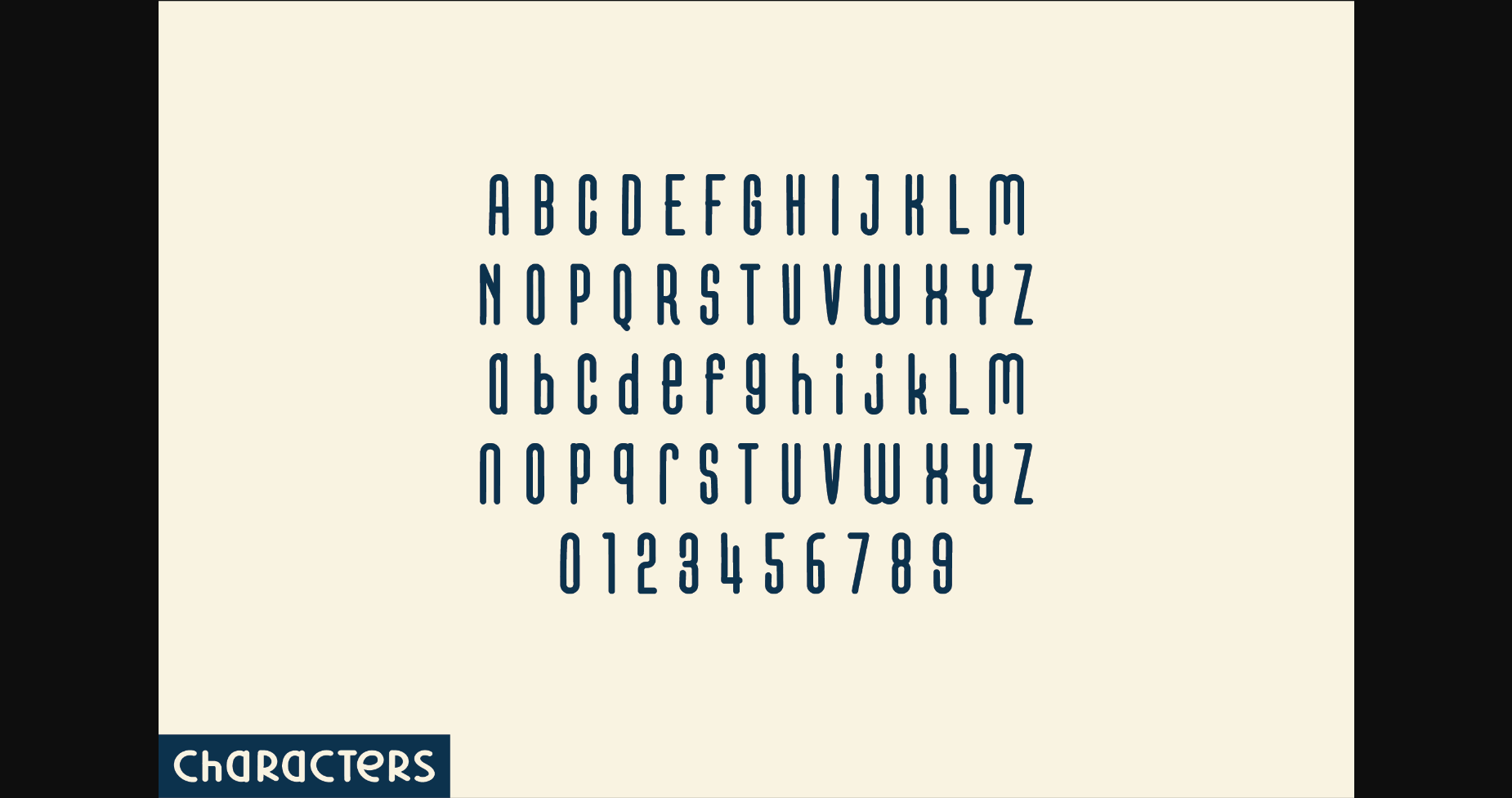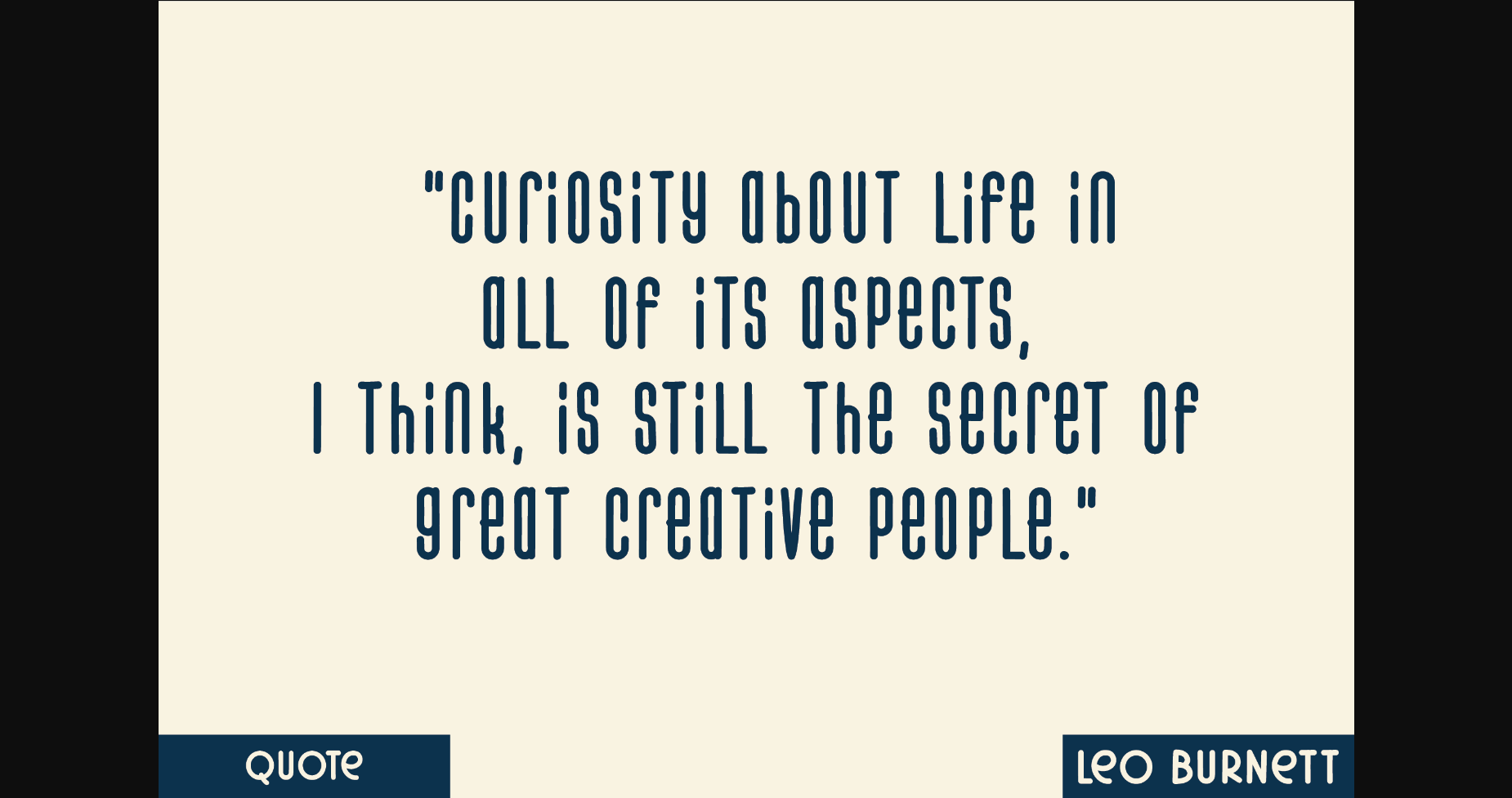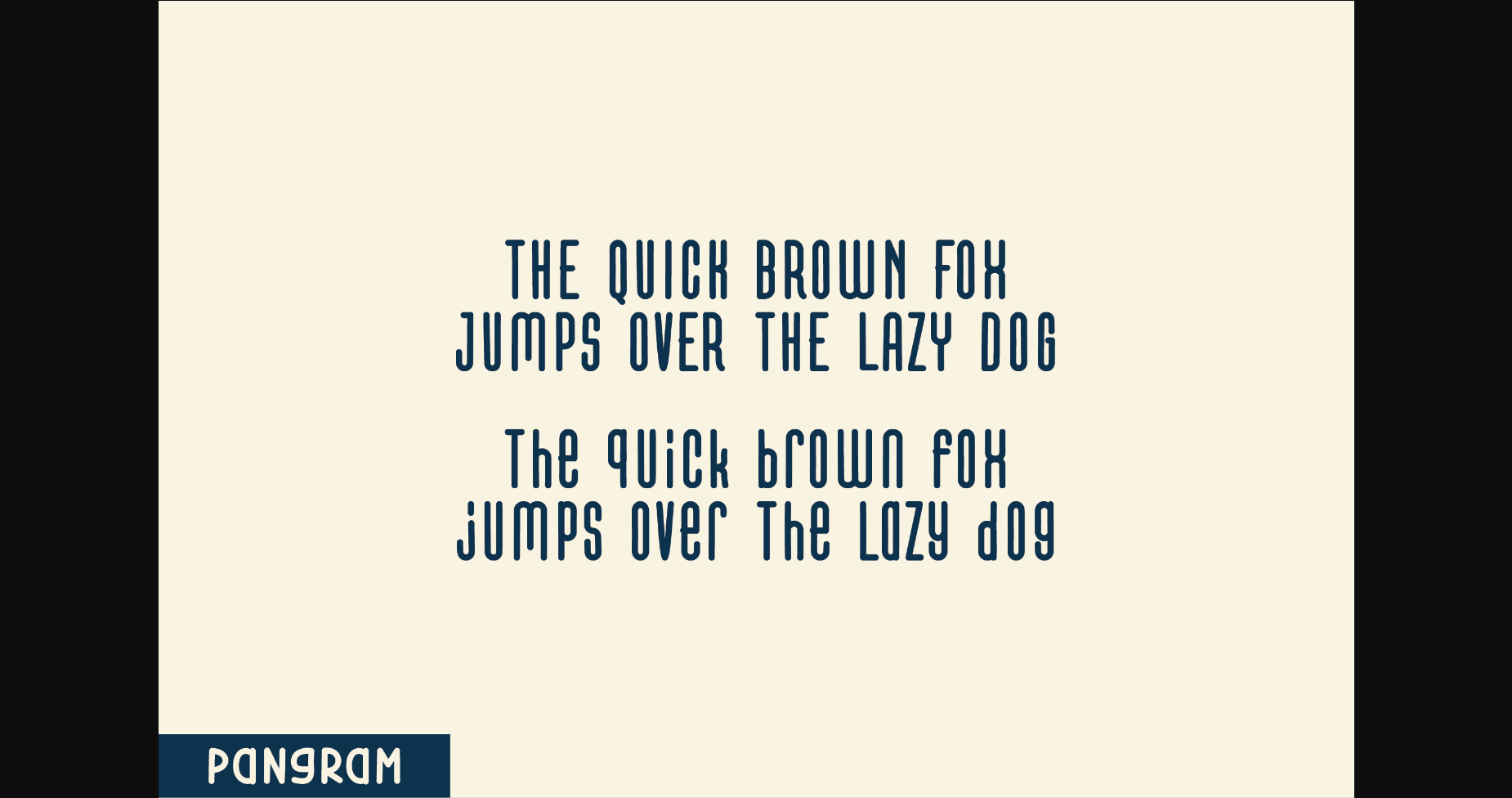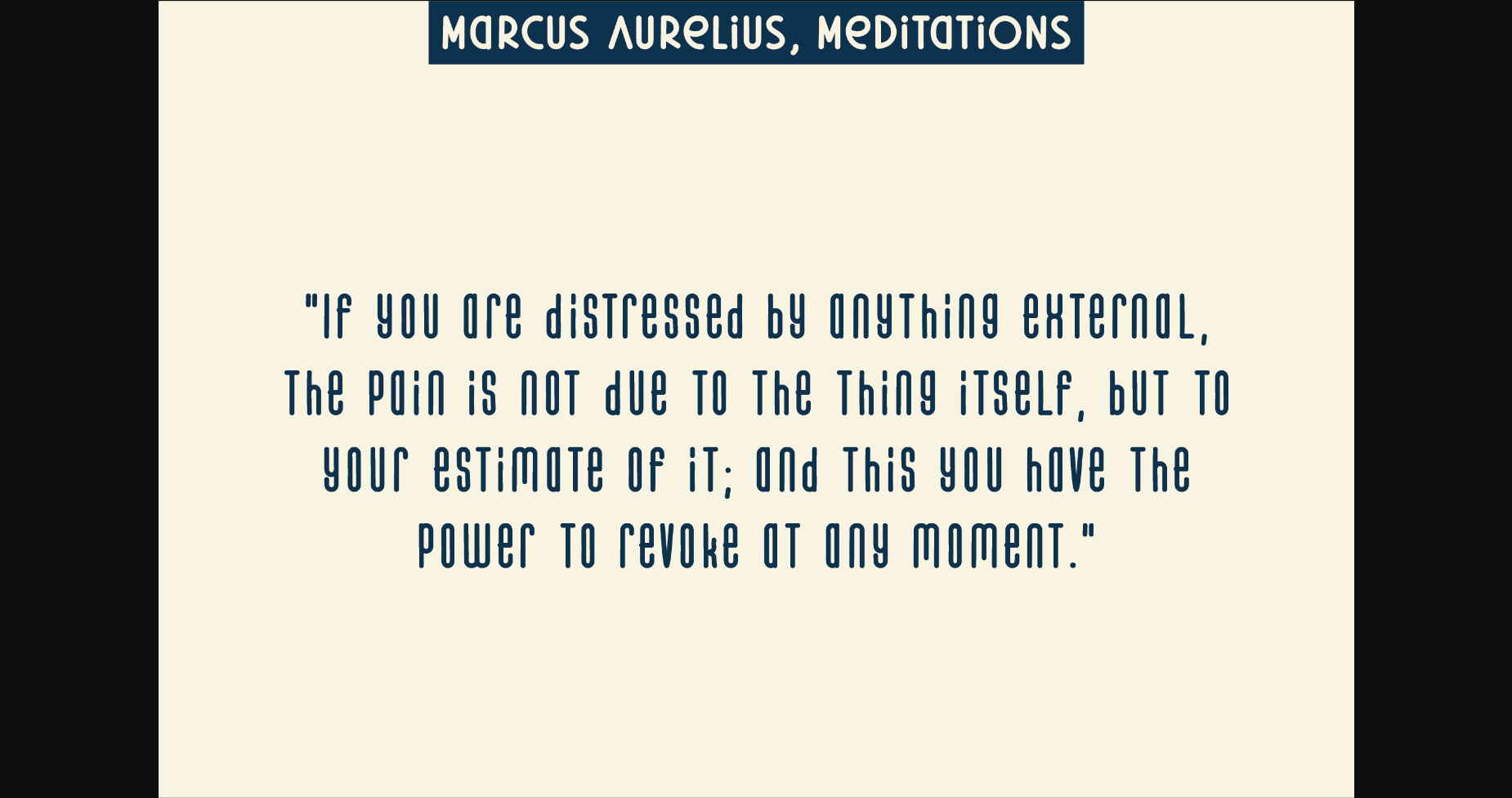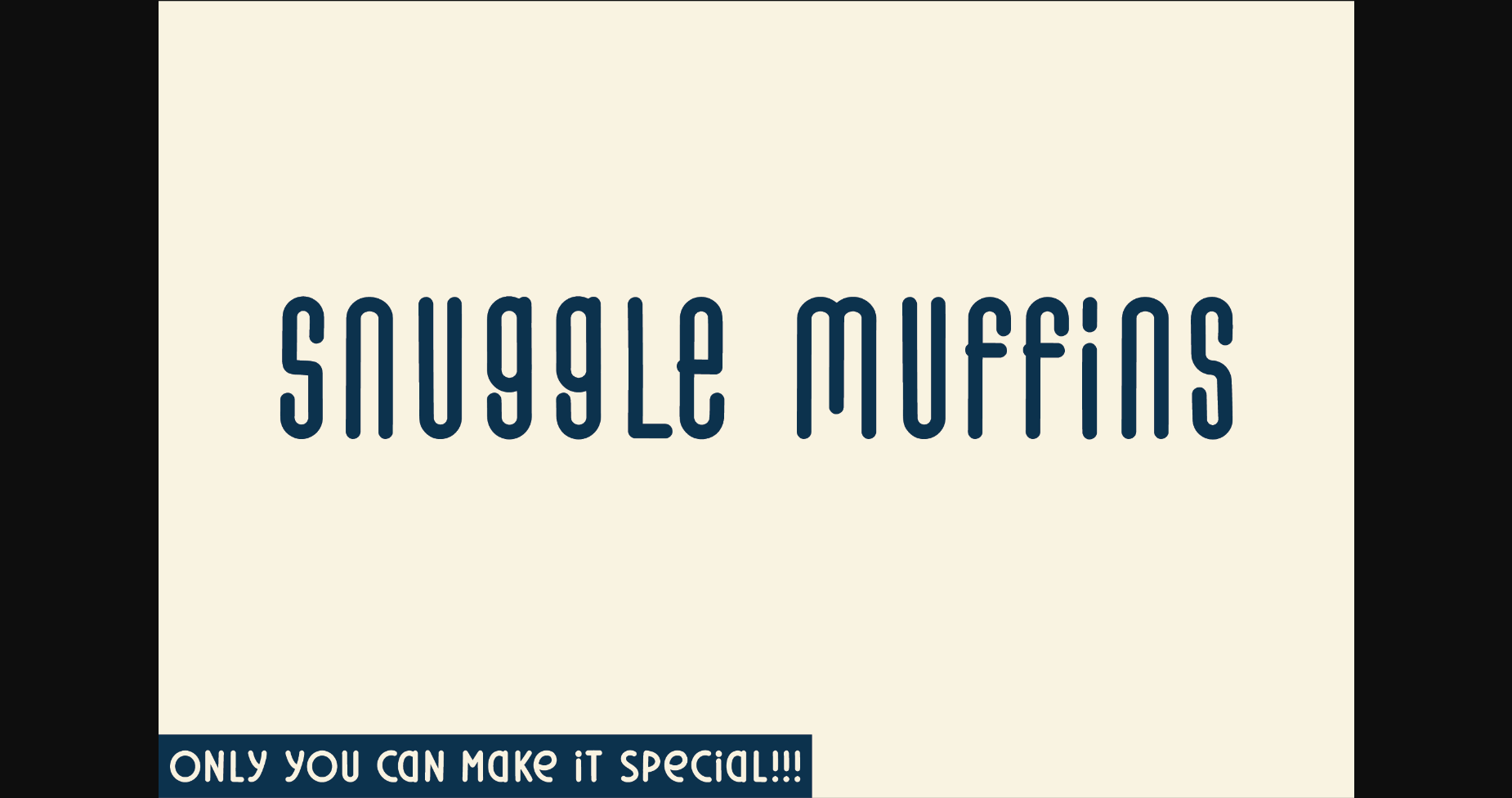
Snuggle Muffins Font
About Snuggle Muffins Font
Snuggle Muffins feels playfully nostalgic and delivers an incredible vintage aesthetic. Use this serif font to add that special retro touch to any design idea you can think of!